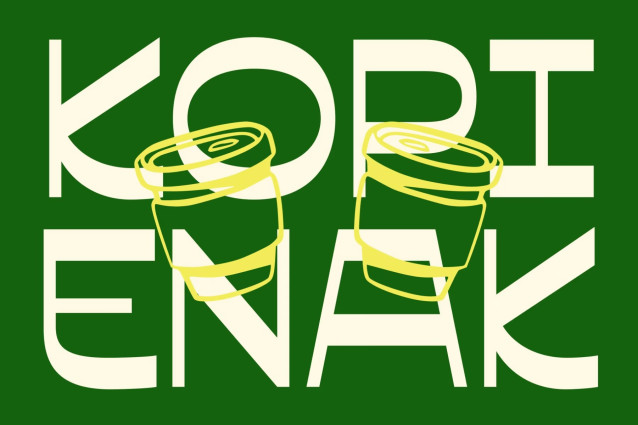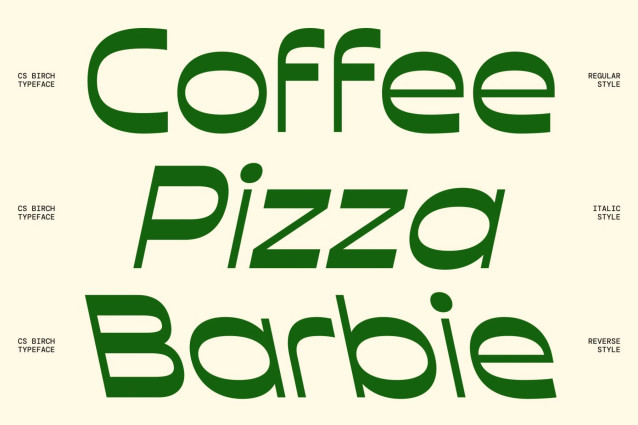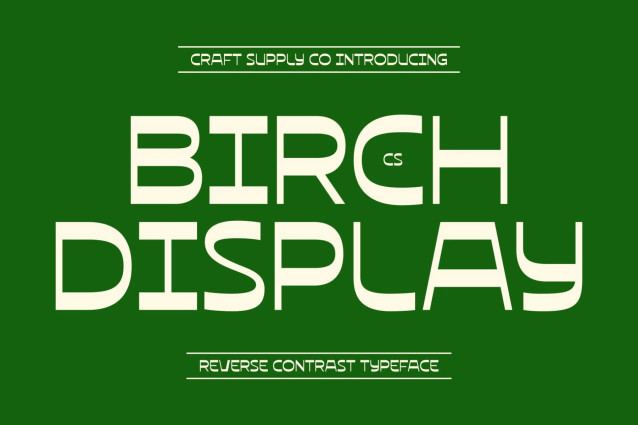
CS Birch Demo Font
CS Birch – Modern Reverse Contrast Display Typeface: Where Retro Character Meets Contemporary Creativity
Clean Curves with Unique Proportions
This is a modern reverse contrast display typeface featuring clean curves, distinctive proportions, and an unconventional stroke structure. By emphasizing horizontal strokes over vertical ones, it creates a striking visual rhythm that immediately captures attention. Its balanced geometry and smooth contours give the font a refined yet playful personality that feels fresh and memorable.
Retro-Inspired Personality with Modern Appeal
Drawing inspiration from classic reverse contrast typography, this font reinterprets vintage design through a contemporary lens. Its unique construction delivers nostalgic charm without sacrificing clarity, resulting in a typeface that feels expressive, stylish, and highly versatile. This blend of retro influence and modern precision makes it ideal for bold creative expression.
Memorable Typography with Contemporary Confidence
With its distinctive proportions and reverse contrast styling, that creates typography that naturally stands out in any composition. Its clean curves provide visual harmony, while its unconventional structure adds character and originality. The result is a display typeface that communicates creativity, confidence, and a strong visual identity.